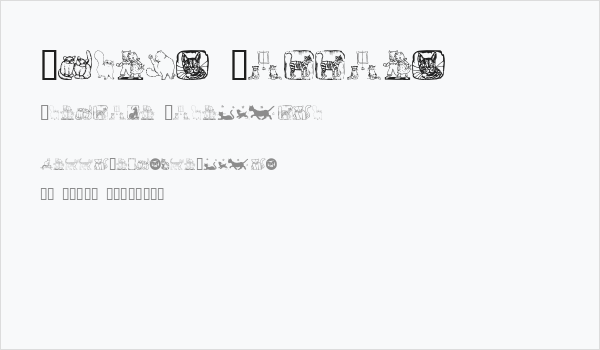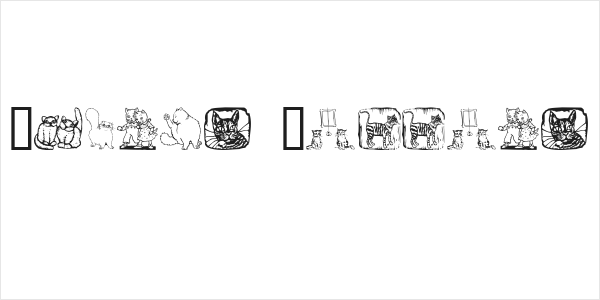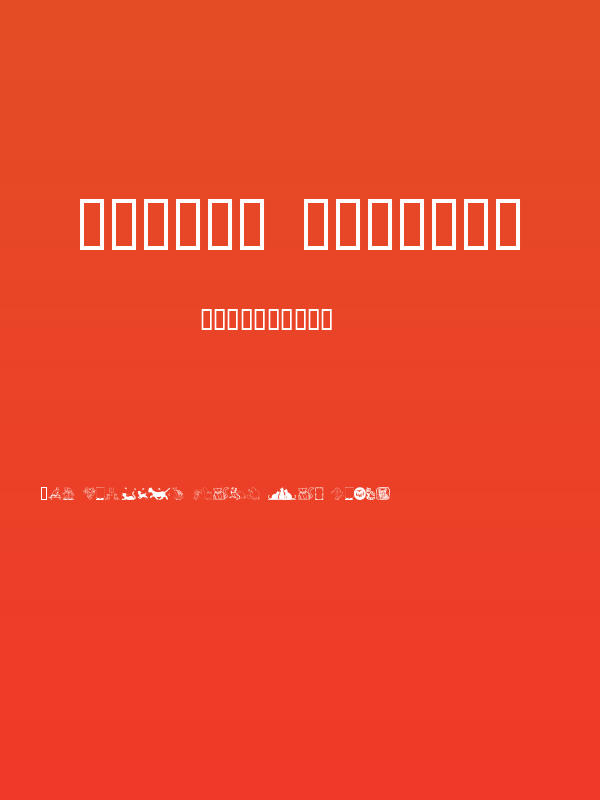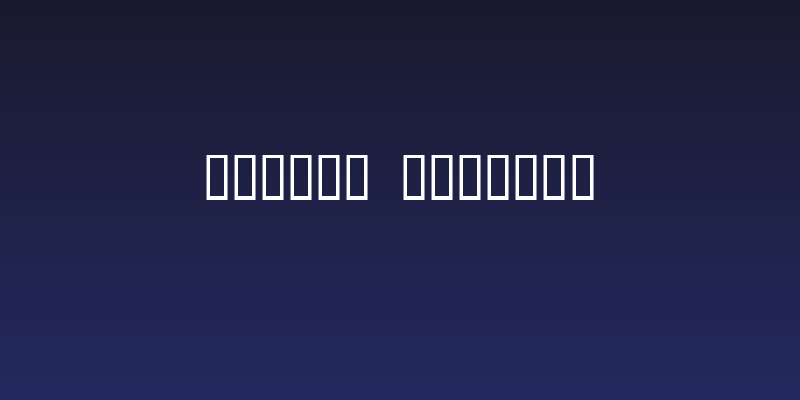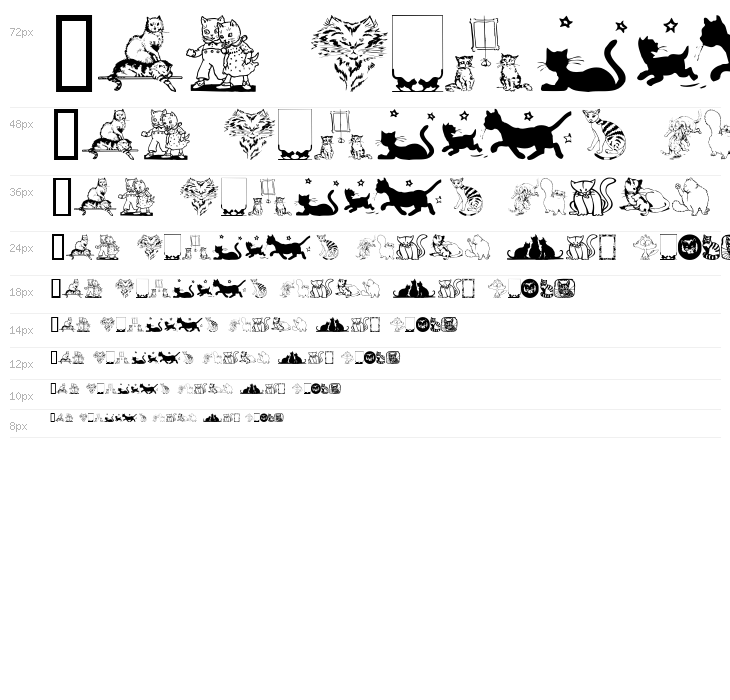
Karens Kitties Font
Karens Kitties Description
This is a decorative font featuring a variety of whimsical cat illustrations. Each character is represented by a unique cat design, showcasing different poses and expressions. The style is playful and artistic, with intricate details that capture the charm and personality of cats. The illustrations are bold and clear, making them suitable for creative and fun projects. The font does not follow traditional typographic rules, as it is more of an artistic representation rather than a standard alphabet.
| Overall Style | Playful and Artistic |
| Use Case | Logos, Decorative elements, Creative projects |
| Proposed Projects | Ideal for children's books, pet-related branding, greeting cards, and playful design projects. |